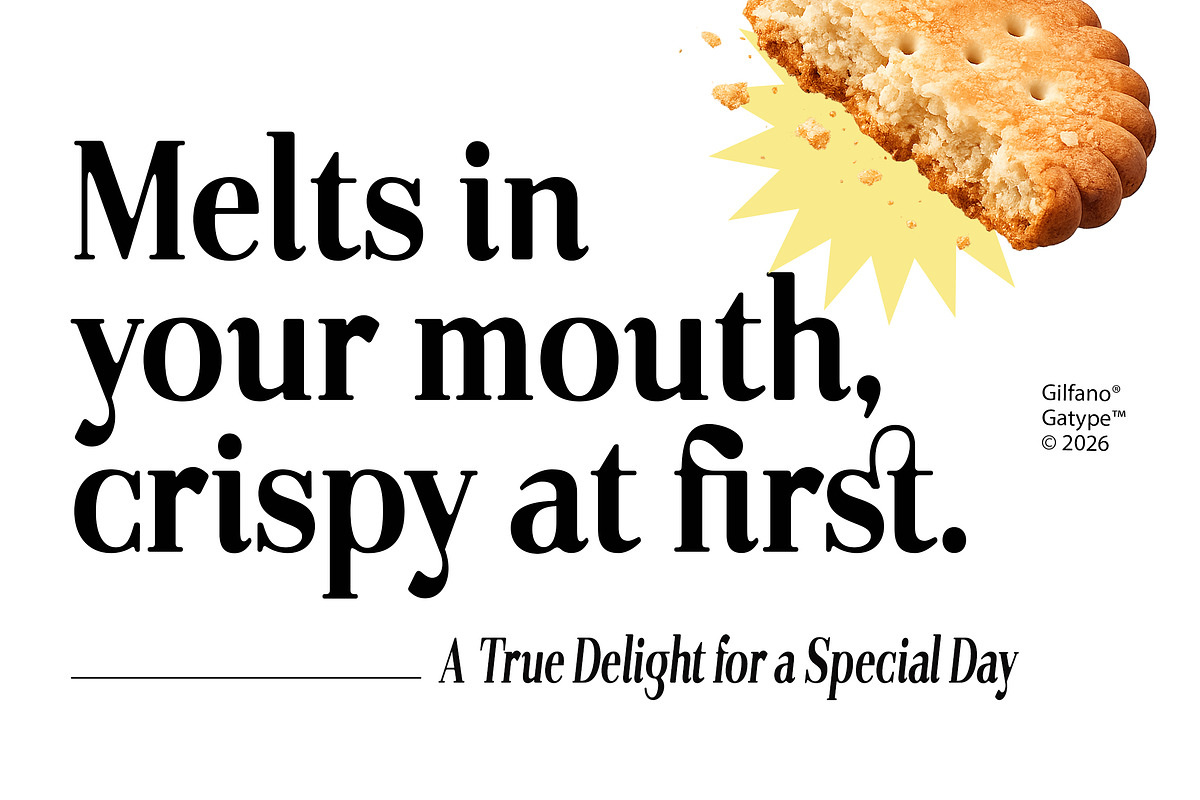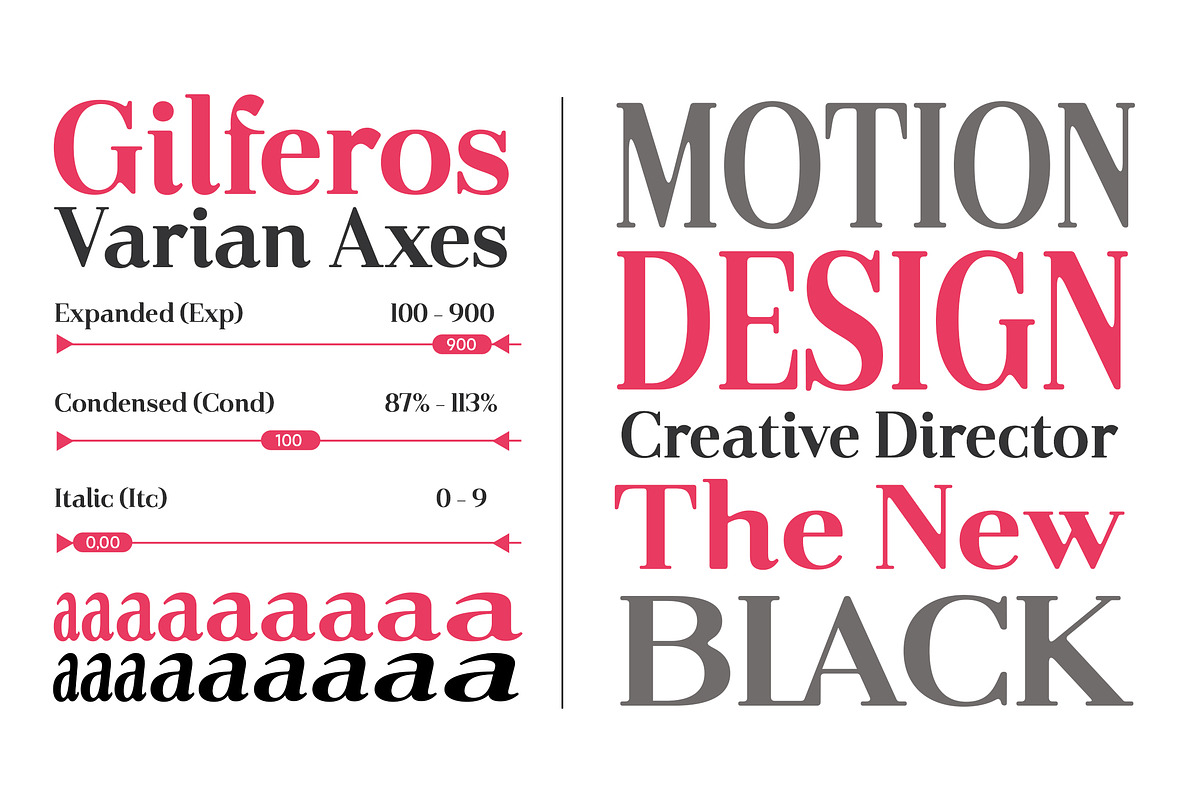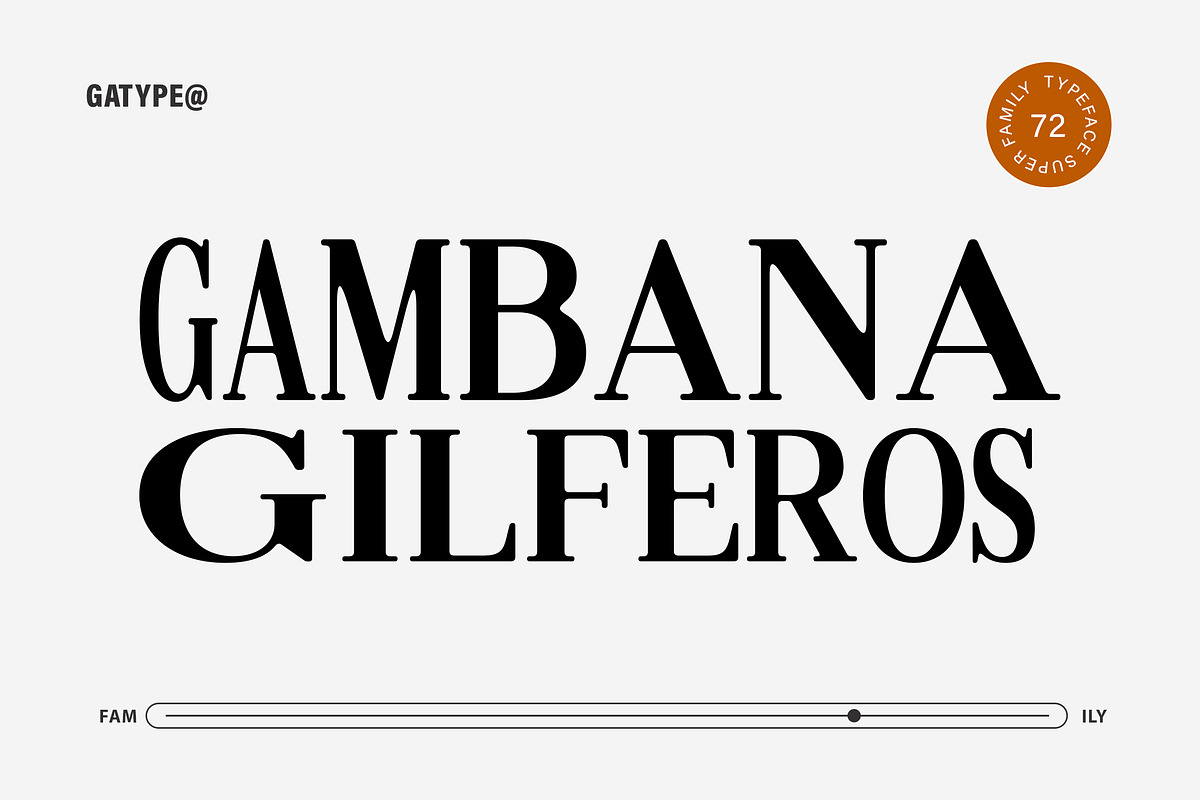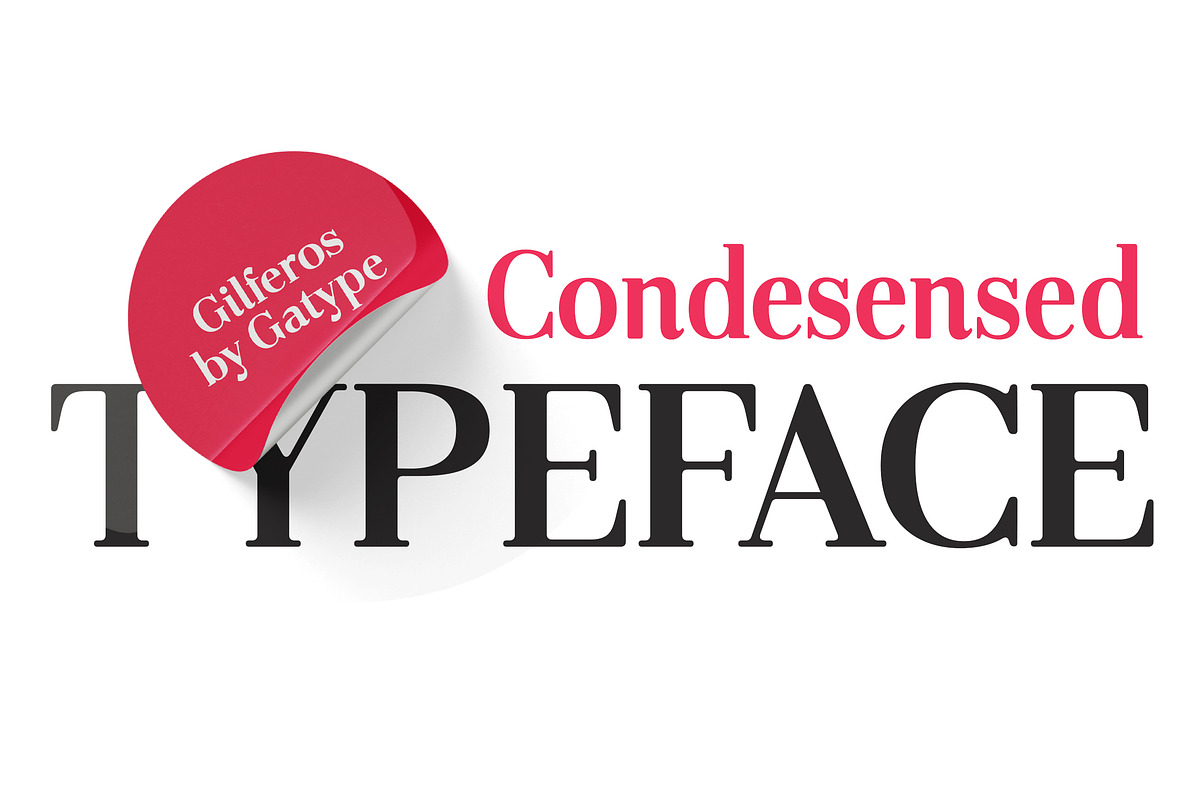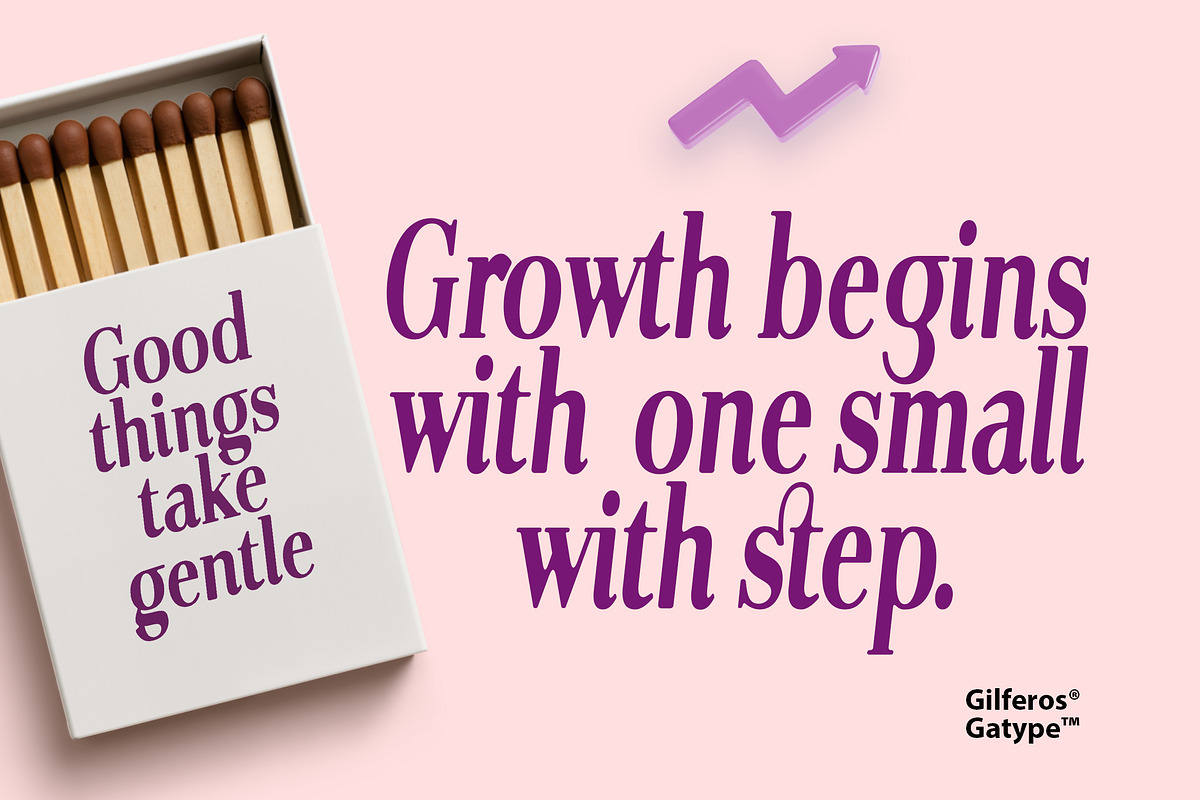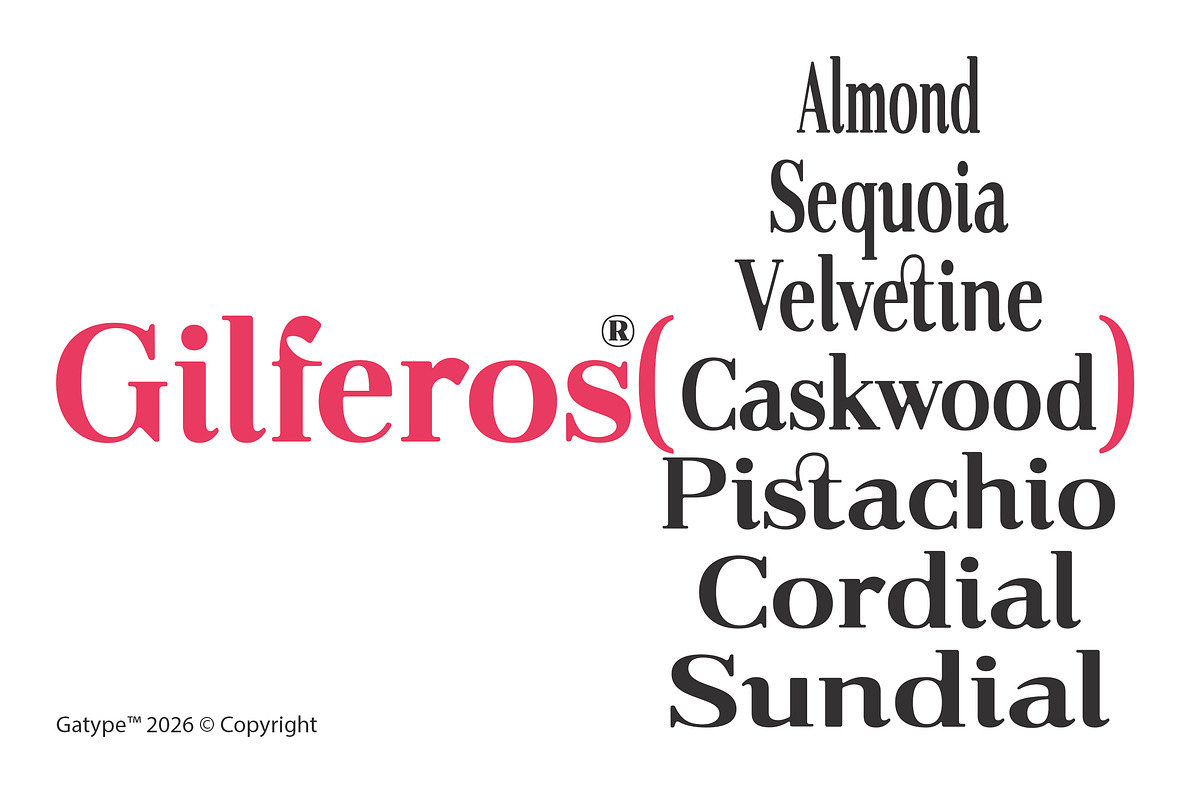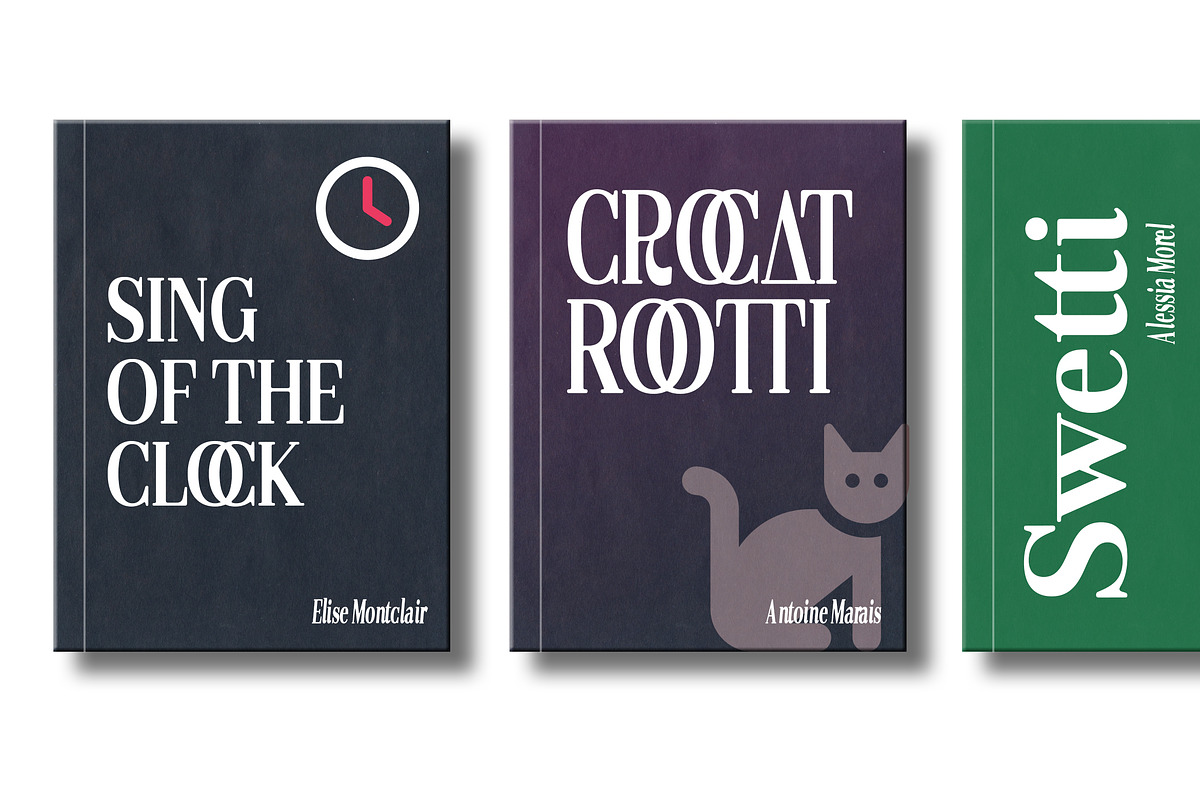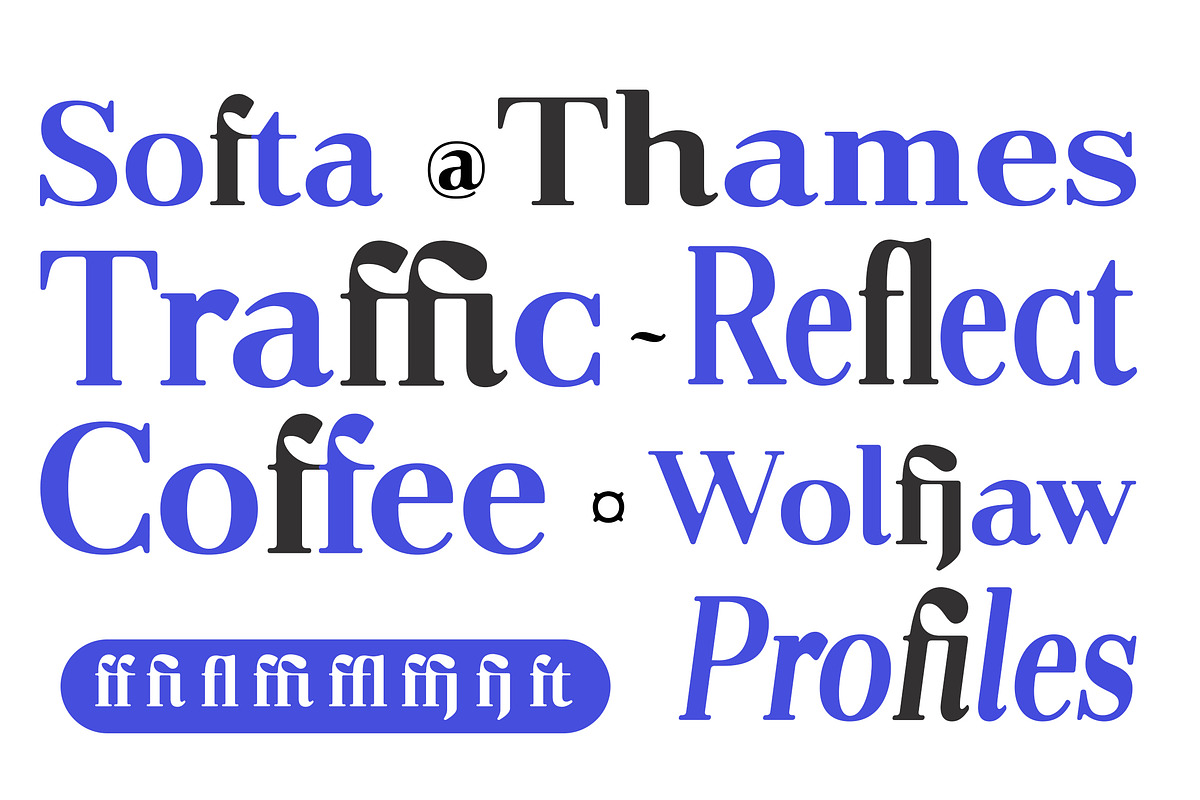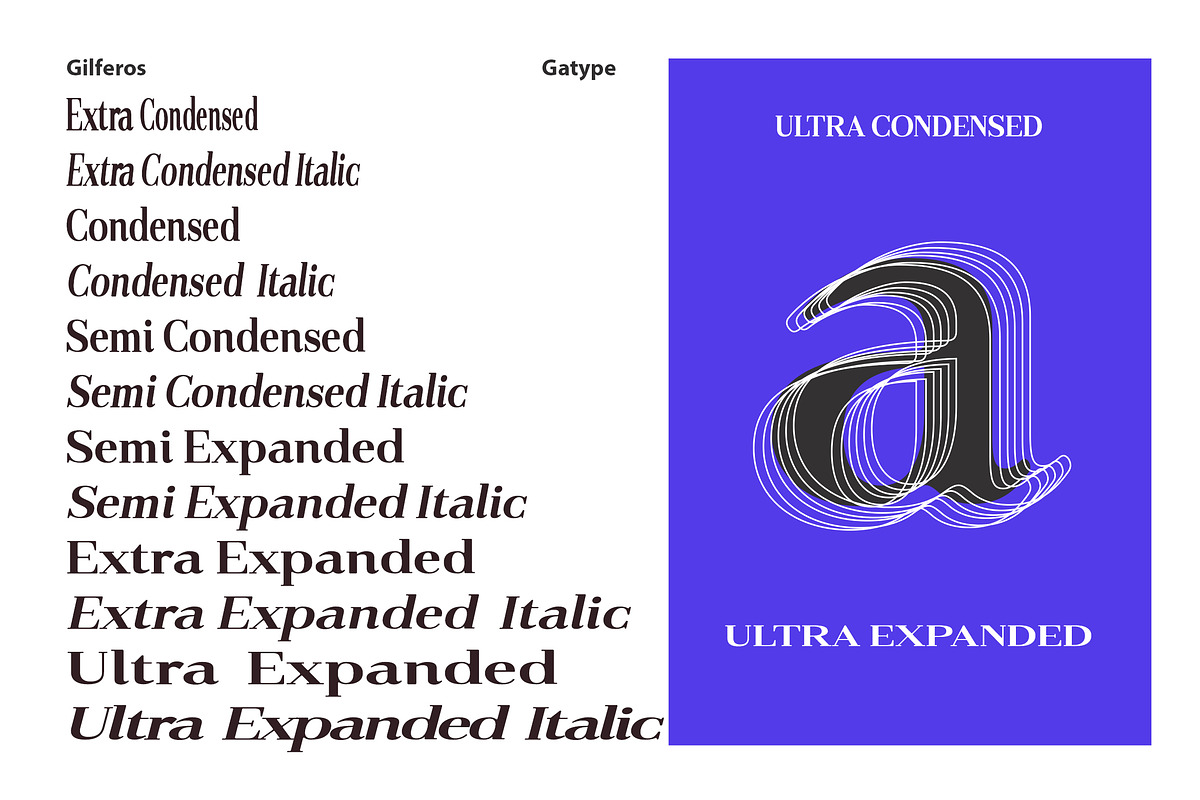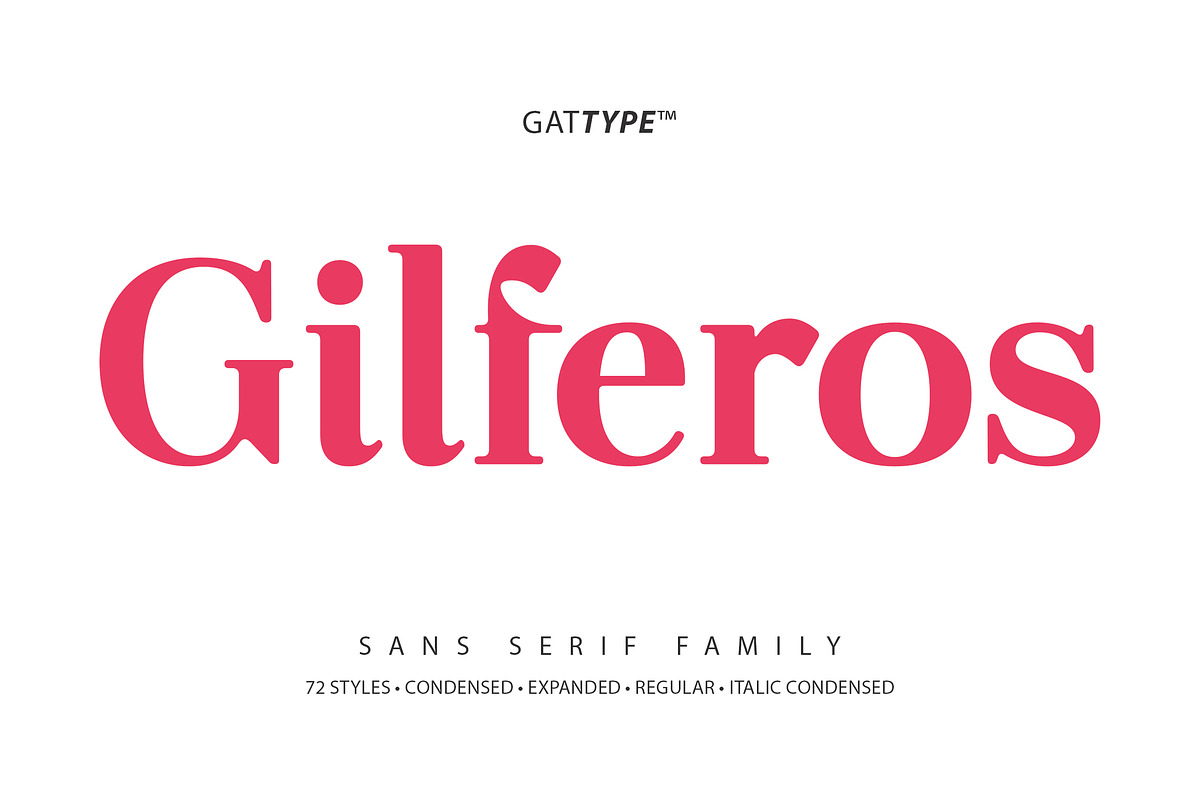
Gilferos
Introducing the Gilferos Family. This typeface pushes structural typography to its design limits, blending a traditional serif foundation with extreme dimensional contrast. The "Extra Expanded" style creates an exceptionally wide horizontal profile, while the "Condensed" framework drastically emphasizes the verticality of each character. This fusion results in striking, architectural letterforms that instantly command visual attention without sacrificing classic editorial heritage.
Gilferos (Regular, Condensed, Expanded, Extra Condensed, Ultra Condensed, Semi-Condensed, Italic)
Gilferos features a classic serif structure and refined, high-contrast strokes that maintain a sophisticated stylistic foundation.